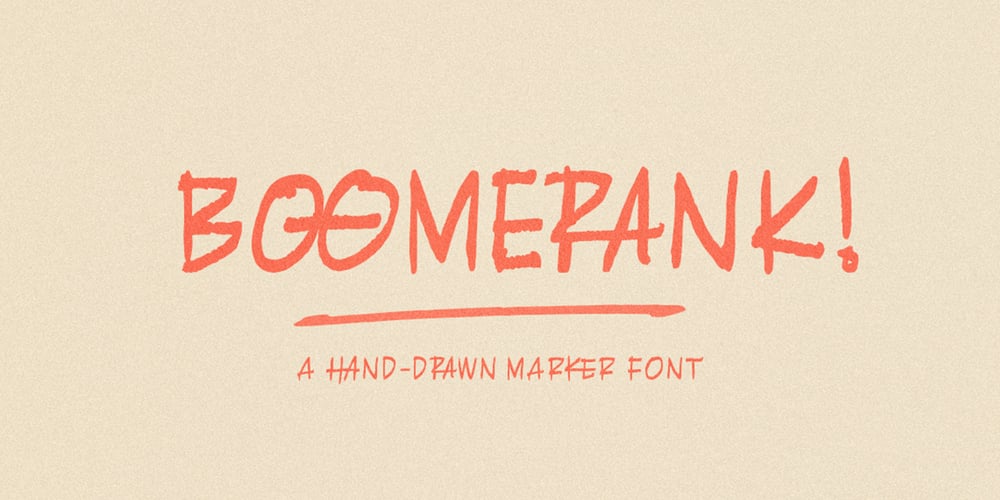
Boomerank Font Family was designed by Gitayogi Irhandi and published by Scratch Design. Boomerank contains 1 styles and family package options. Introducing Boomerank! It’s a cool Dry Marker handwriting with 23 ligatures and some swashes to make your notes type look authentic! This font is perfect for some projects like logotypes, comics, headlines, invitations, quotes, menu design, branding, clothing, prints ads and some designs that need natural handwriting with dry marker effects.Please Note: To access all the features of this font you will need software with a glyphs panel – such as Adobe Photoshop CC, Adobe Illustrator, and Adobe Indesign. We hope you will get so much fun and get inspired when you play with this font. Hope will get some amazing experiences with Boomerank! Just download it now!